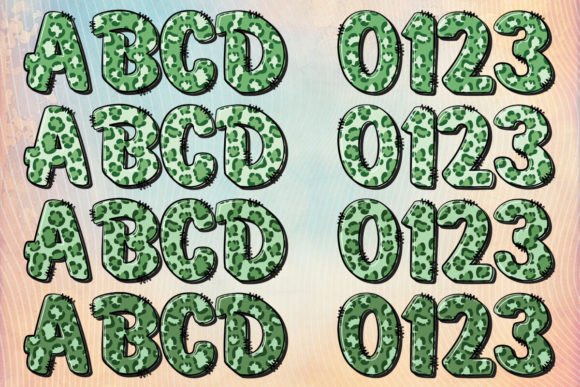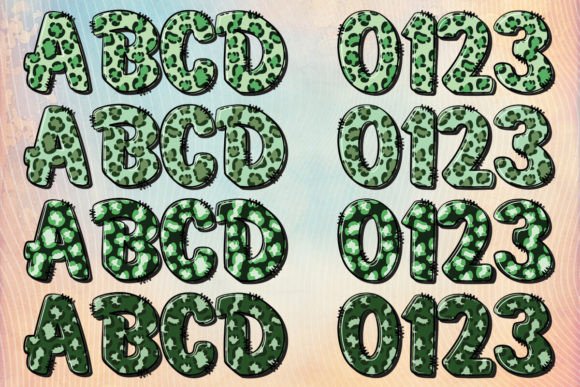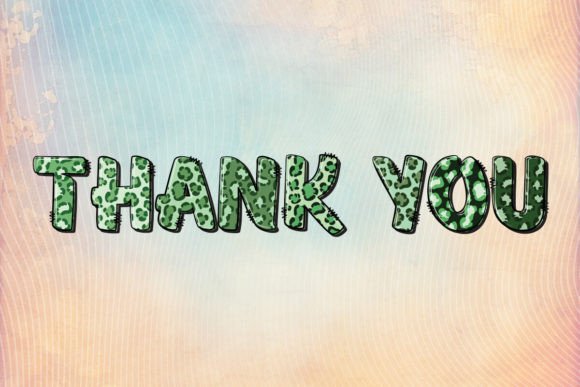
Unleashing the Wild Side of Design: A Deep Dive into the Green Leopard Font
I’ll never forget the design project that led me to discover the captivating Green Leopard font. I was working on a St. Patrick’s Day-themed craft project, and I needed a font that would capture the essence of the holiday’s Irish charm and wild spirit. After hours of scouring the internet, I stumbled upon this unusual alphabet that would change the game for me. Each letter was intricately designed to mimic the patterns found on real leopard and cheetah skin, with a verdant hue that screamed Irish charm.
The Green Leopard font was love at first sight! I knew I had to share this find with fellow designers, crafters, and creative hobbyists. In this article, we’ll explore what makes this font so special, its compatibility with various design programs, and how to make the most of its OpenType features.
- ✨ Unique and eye-catching design inspired by leopard skin patterns
- ✅ Verdant hue that perfectly captures the Irish charm of St. Patrick’s Day
- ✅ Robust visual impact, perfect for projects that require a dash of wilderness
While the Green Leopard font is a stunning addition to any design project, there are a few things to keep in mind:
- 🤔 Some users may find the font’s intricate patterns and colors overwhelming or difficult to pair with other design elements.
The Story Behind the Green Leopard Font
The Green Leopard font was inspired by the exotic allure of leopard skin patterns and the Irish charm of St. Patrick’s Day. The designer aimed to create a typeface that would capture the spirit of the holiday while conveying a sense of wildness and adventure. The result is a font that’s both bold and beautiful, perfect for designers who want to add a touch of personality to their projects.